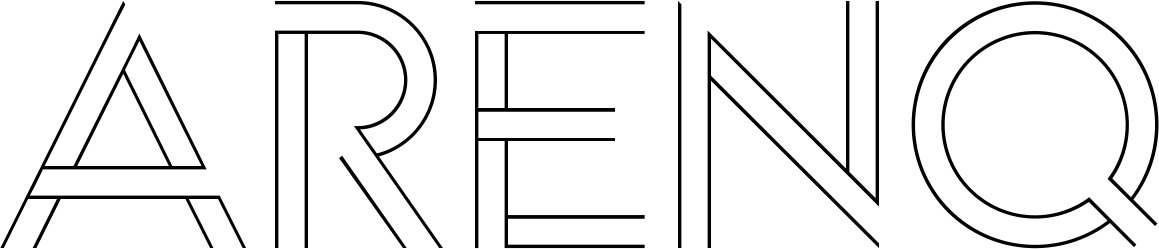
Arenq Font
Arenq is a superbly minimal and stylish font. These kinds of ultra-modern fonts tend to capture the attention of the viewers when used in titles and headings. It’s an all-caps outline font. So it doesn’t support all of the characters.
* This font has Stilystic Alternates that you can use in programs like Photoshop, Illustrator, InDesign and many others…
The font Arenq was designed by Paulo R in 2014.